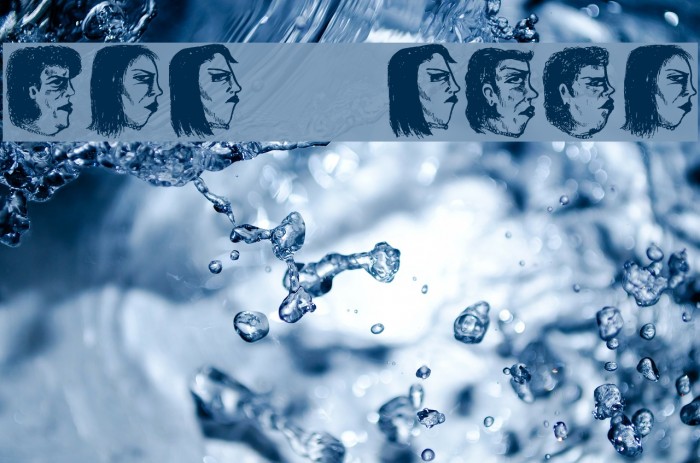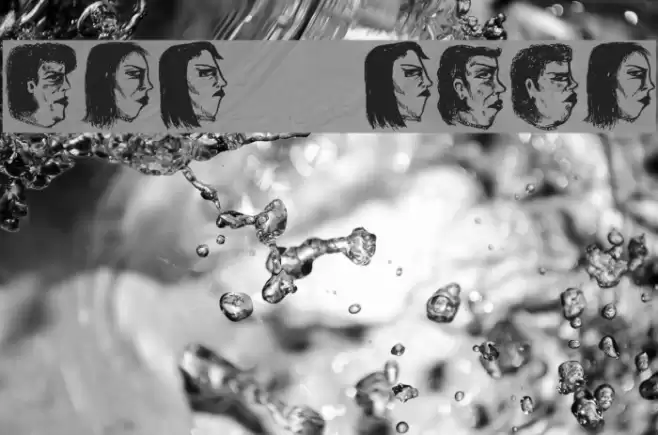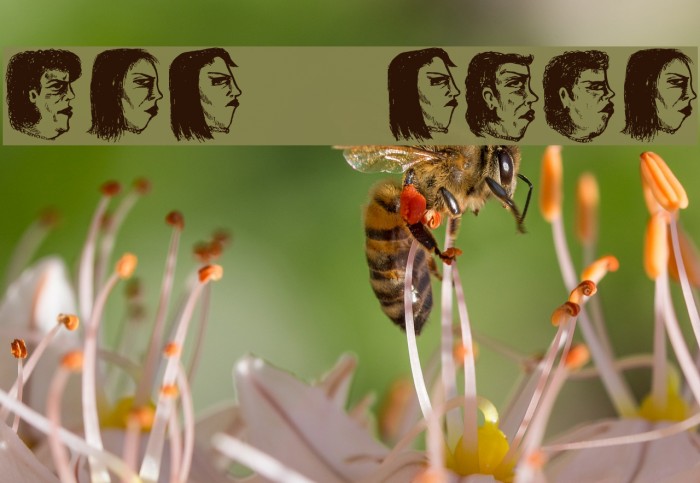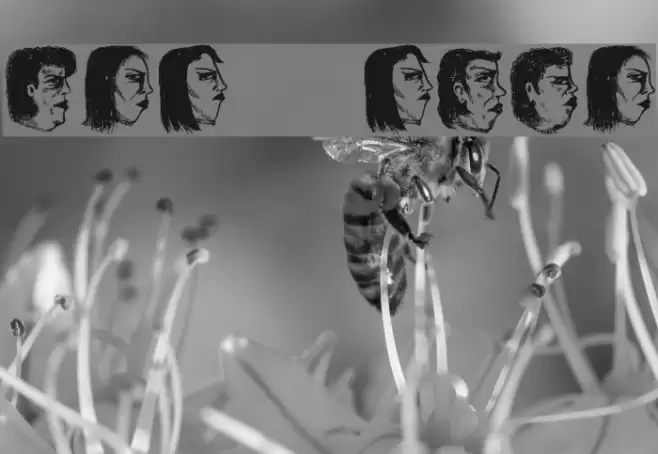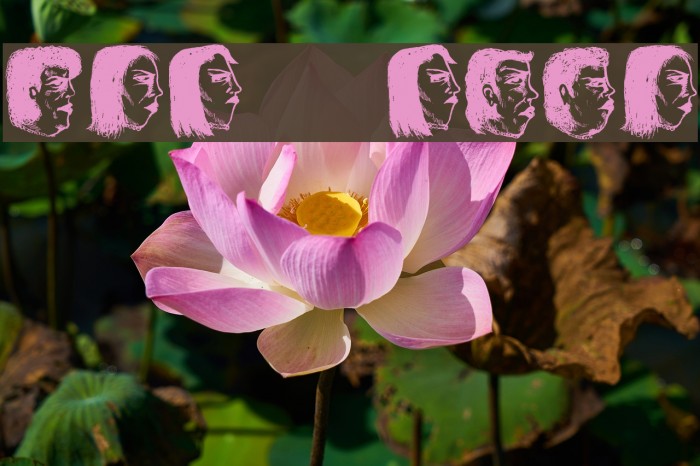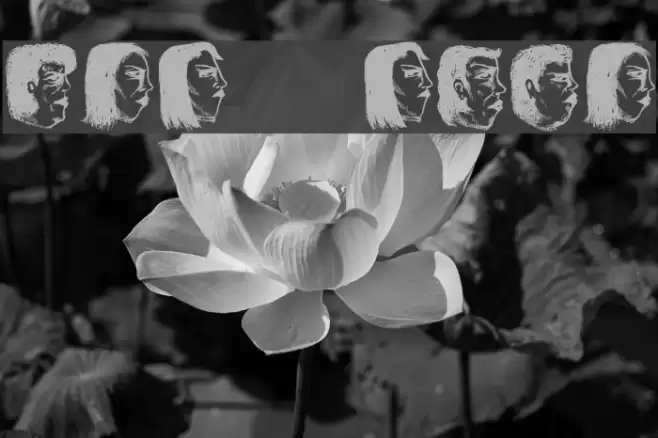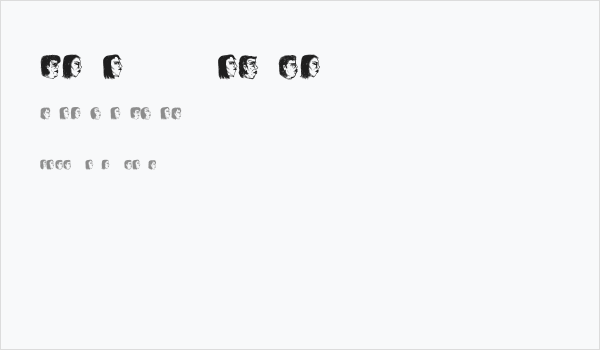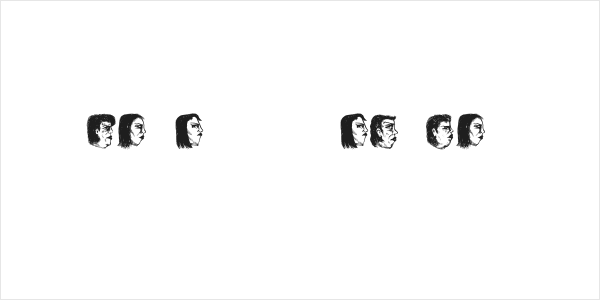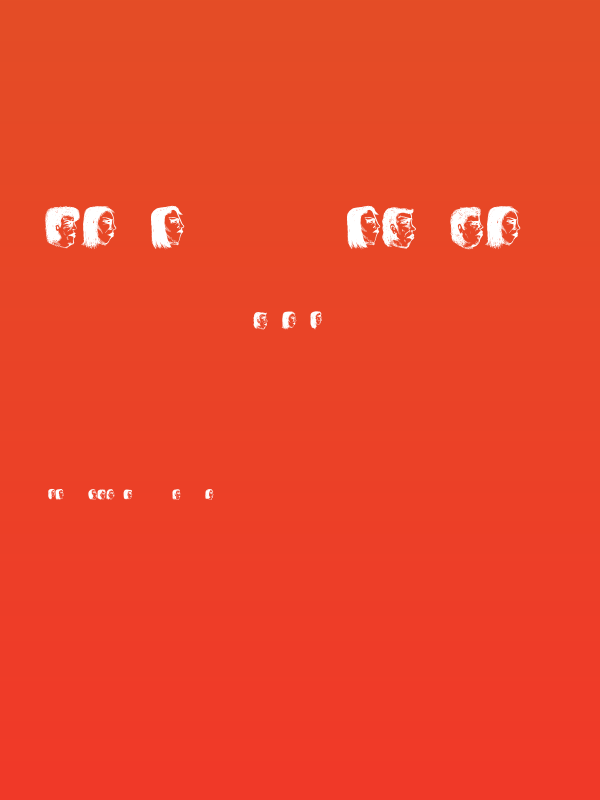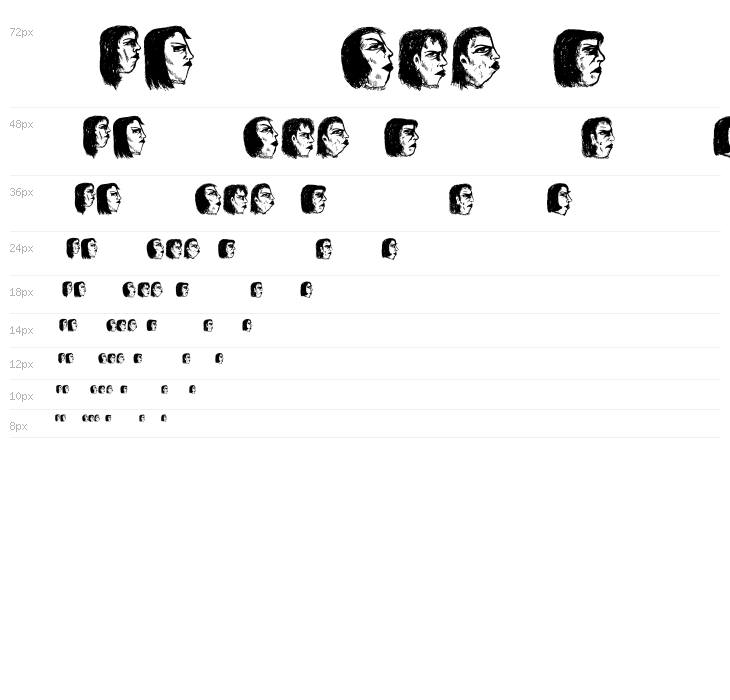
Damen 2 Regular Font
Damen 2 Regular Description
A highly decorative font composed of illustrated human faces in profile, each character represented by a unique, hand-drawn head with expressive features and bold, sketch-like lines.
| Overall Style | Decorative, Artistic, Experimental |
| Use Case | Logos, Headlines, Posters, Artistic projects |
| Proposed Projects | Art posters, album covers, experimental design, zines, alternative comics, event flyers. |